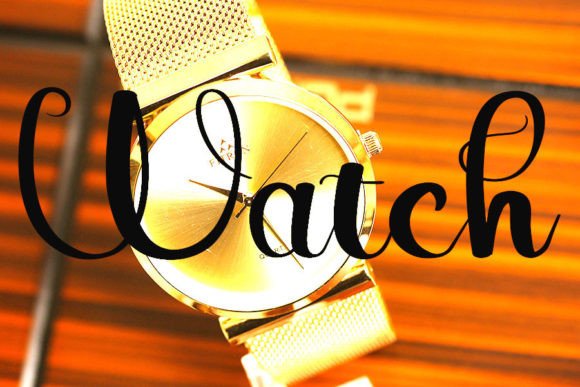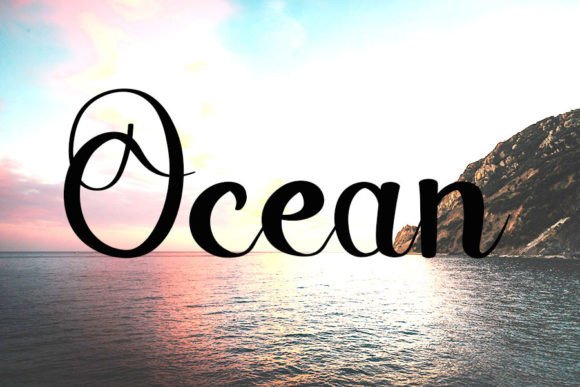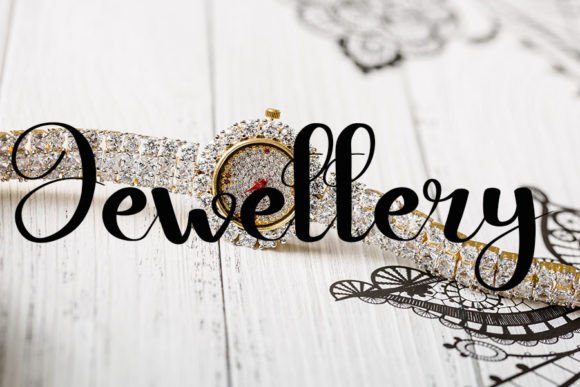
Introduction to Second Font
Enter Second Font, a beautifully crafted handwritten font that’s perfect for designers who crave high-quality typography. With its distinct and timeless style, Second Font is an excellent addition to any creative project, whether it’s a logo, a poster, or a social media graphic. Its versatility makes it a valuable asset for designers, and its free download option makes it accessible to everyone.
From transparent backgrounds to intricate details, Second Font is a design resource that will never go out of style. So why settle for anything less when you can have the best? Discover the magic of Second Font and take your designs to the next level.
Key Features of Second Font
- Unique characteristics: Modern and sleek design, perfect for minimalist and contemporary design styles.
Honest Review: Second Font
I recently had the chance to work with the Second Font in a creative project and I must say it was a pleasant experience. This design resource offers a high quality typeface that is perfect for any design task.
What works well with the Second Font is its versatility. ✨ It comes in a variety of weights and styles, making it easy to use in different contexts. The transparent background is also a great feature, allowing for seamless integration with any design element.
Overall, I was impressed with the Second Font and would definitely recommend it for any design project. It’s a great resource to have in your toolkit, and its high quality and versatility make it a valuable asset for any designer.
Second Font is suitable for a variety of design projects, including logos, business cards, brochures, and social media graphics. It’s also a great option for creating high-quality typography and graphics for your website or blog.